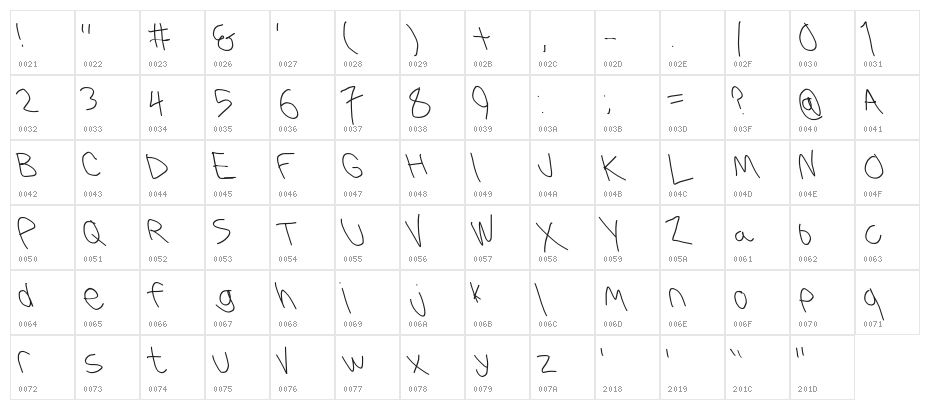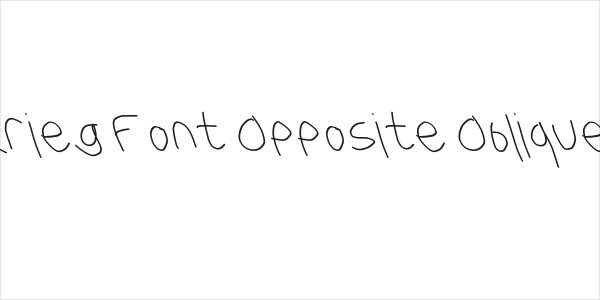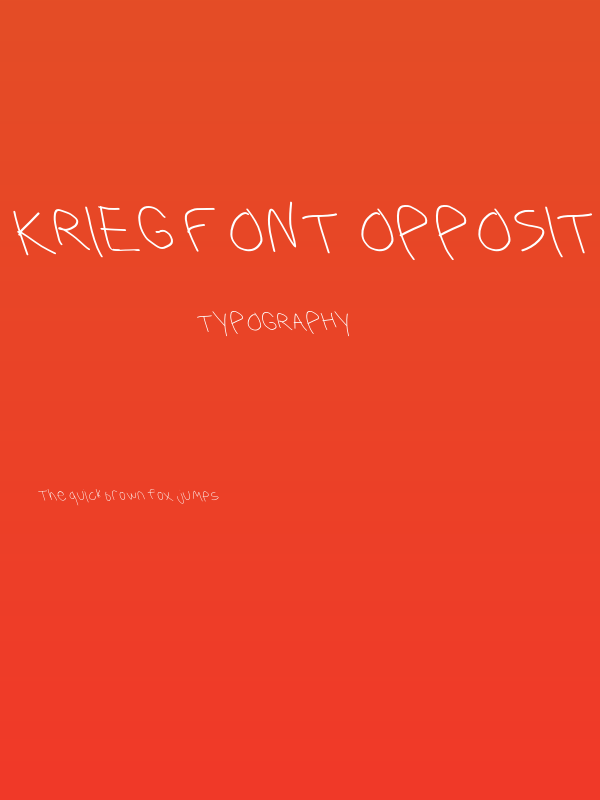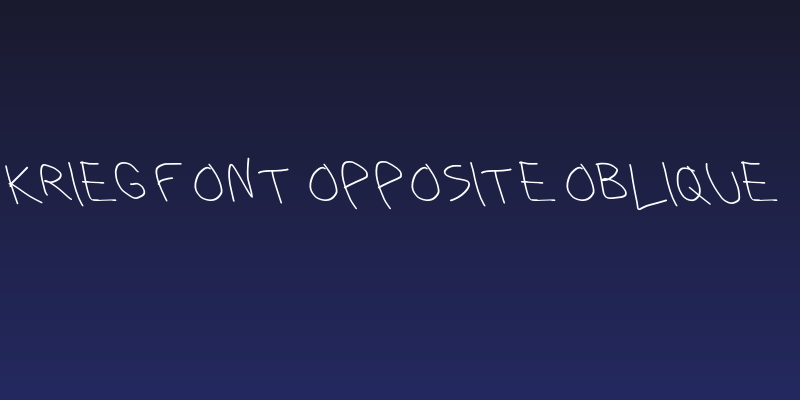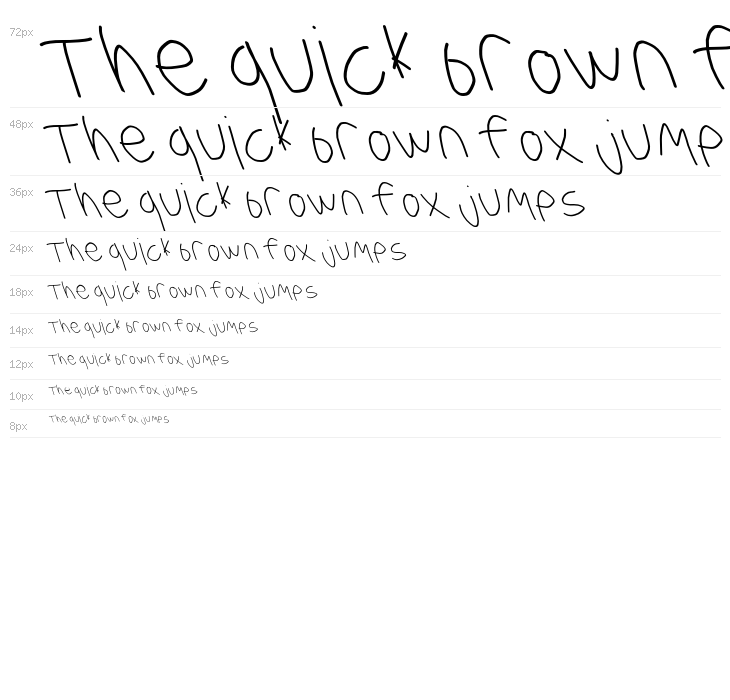
Krieg Font Opposite Oblique Font
Krieg Font Opposite Oblique Description
This font features a playful and casual handwritten style, characterized by its irregular strokes and slightly tilted appearance. The letters are unevenly spaced, giving it a dynamic and informal look. The uppercase and lowercase letters maintain a consistent style, with rounded edges and a slight slant that adds to its whimsical nature. The numbers and special characters follow the same design principles, ensuring a cohesive appearance across all glyphs. This font is ideal for projects that require a personal touch or a relaxed, approachable aesthetic.
| Use Case | Headlines, Informal text, Personal projects |
| Proposed Projects | Ideal for greeting cards, personal blogs, children's books, and informal branding. |